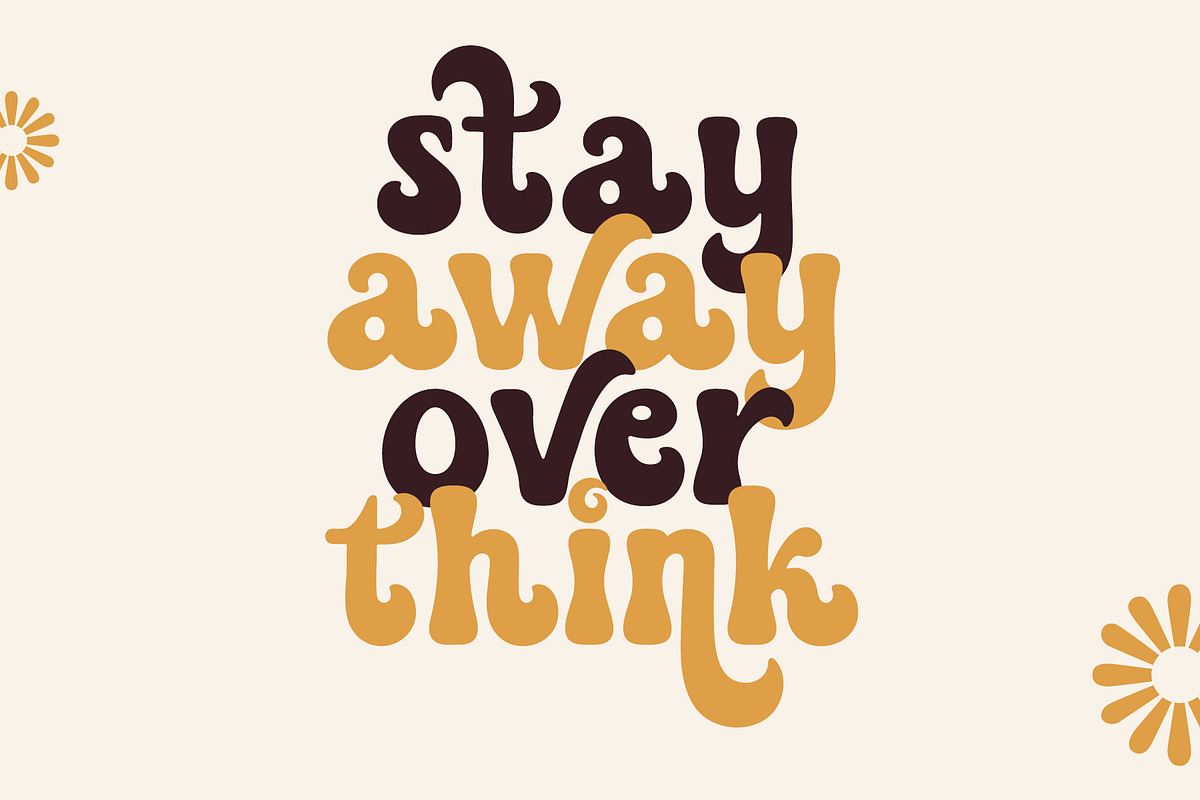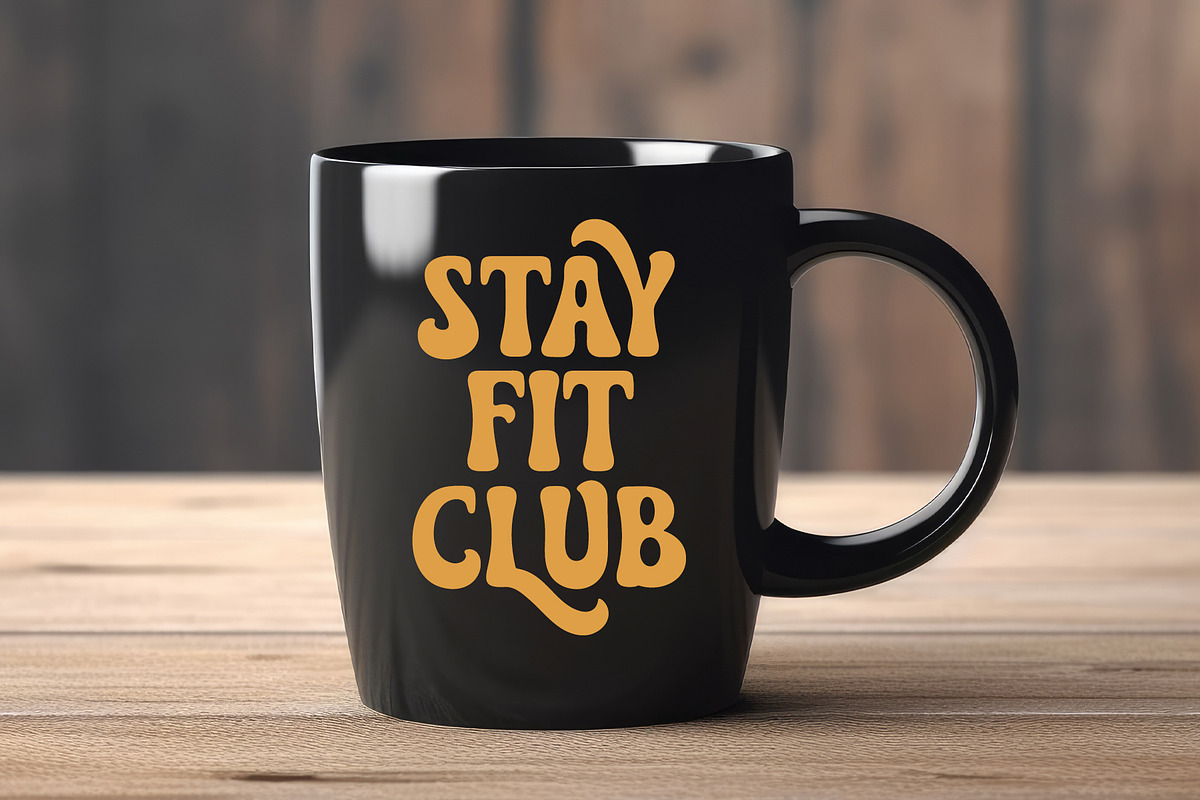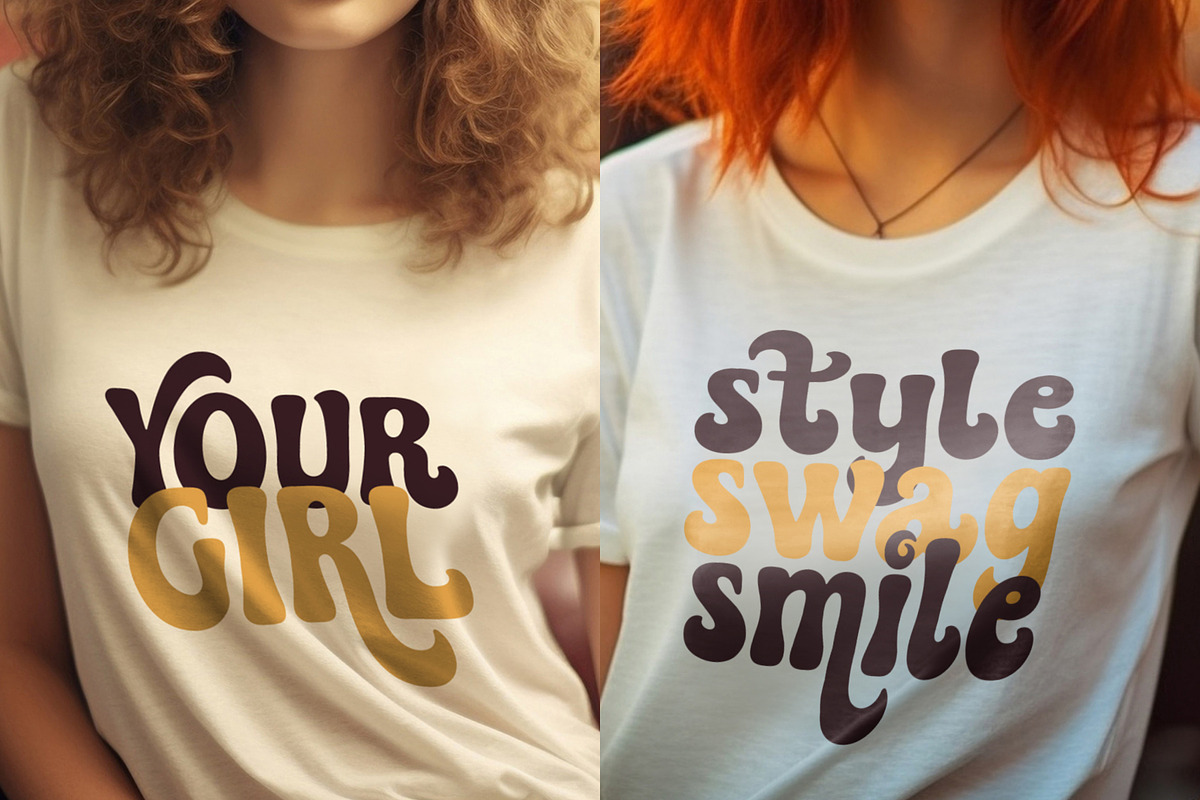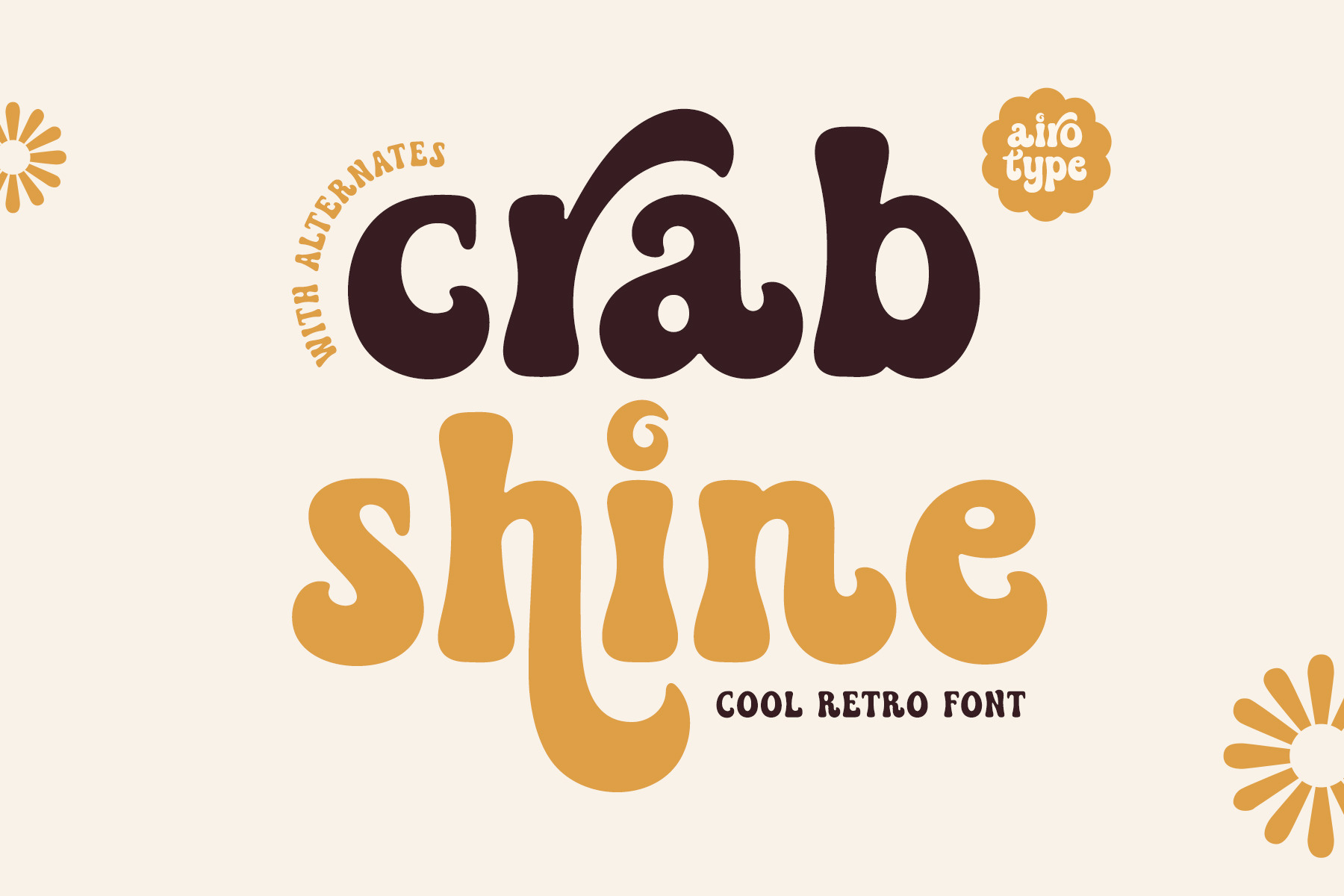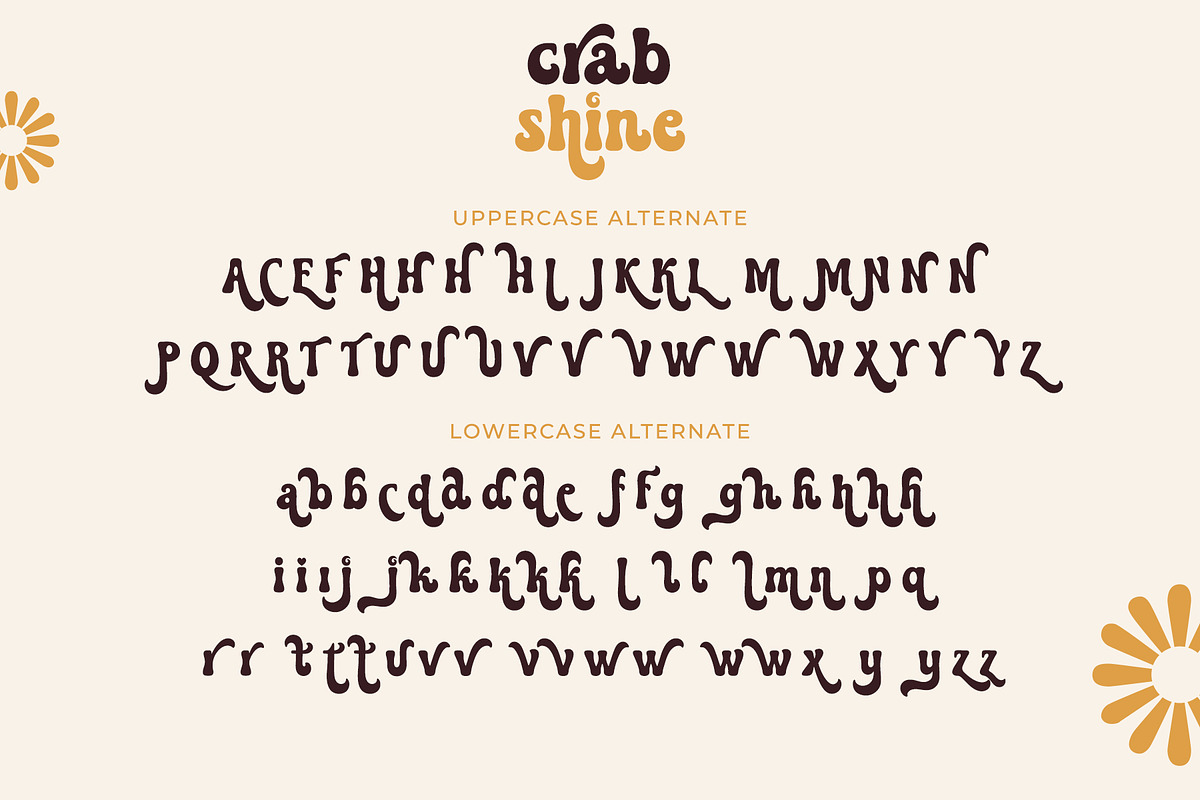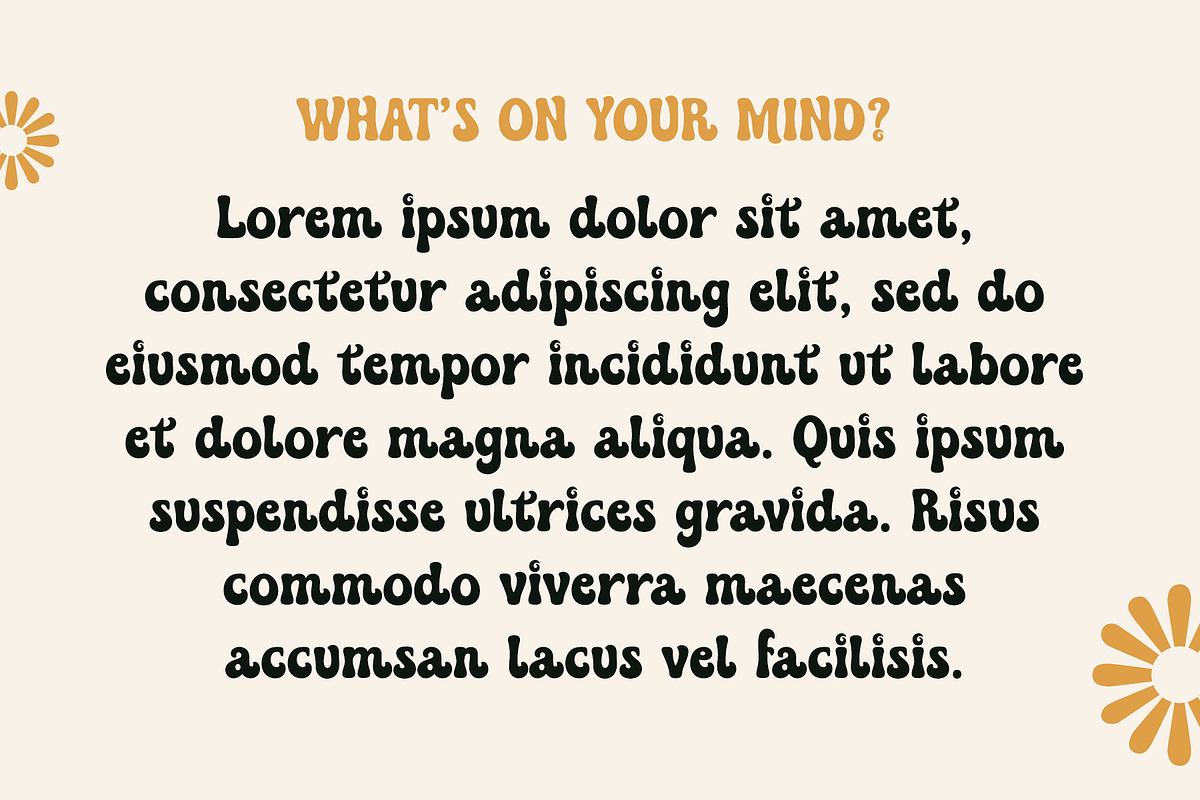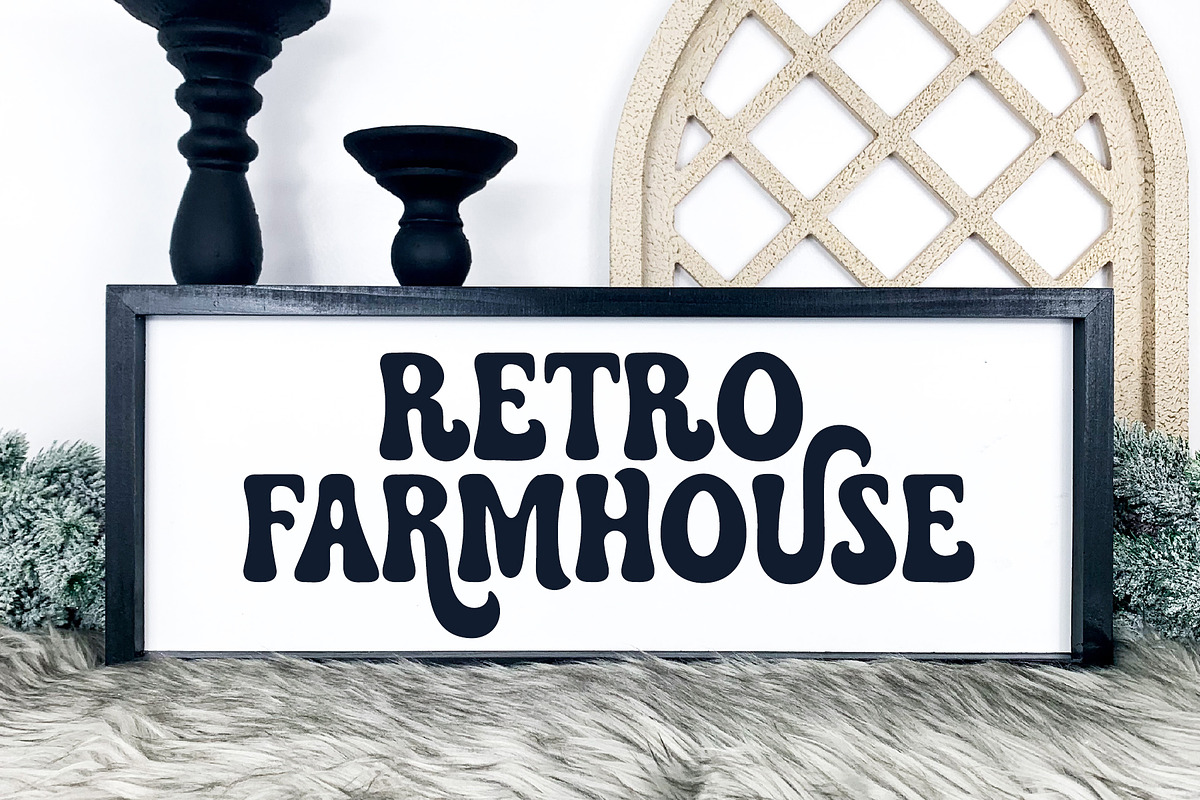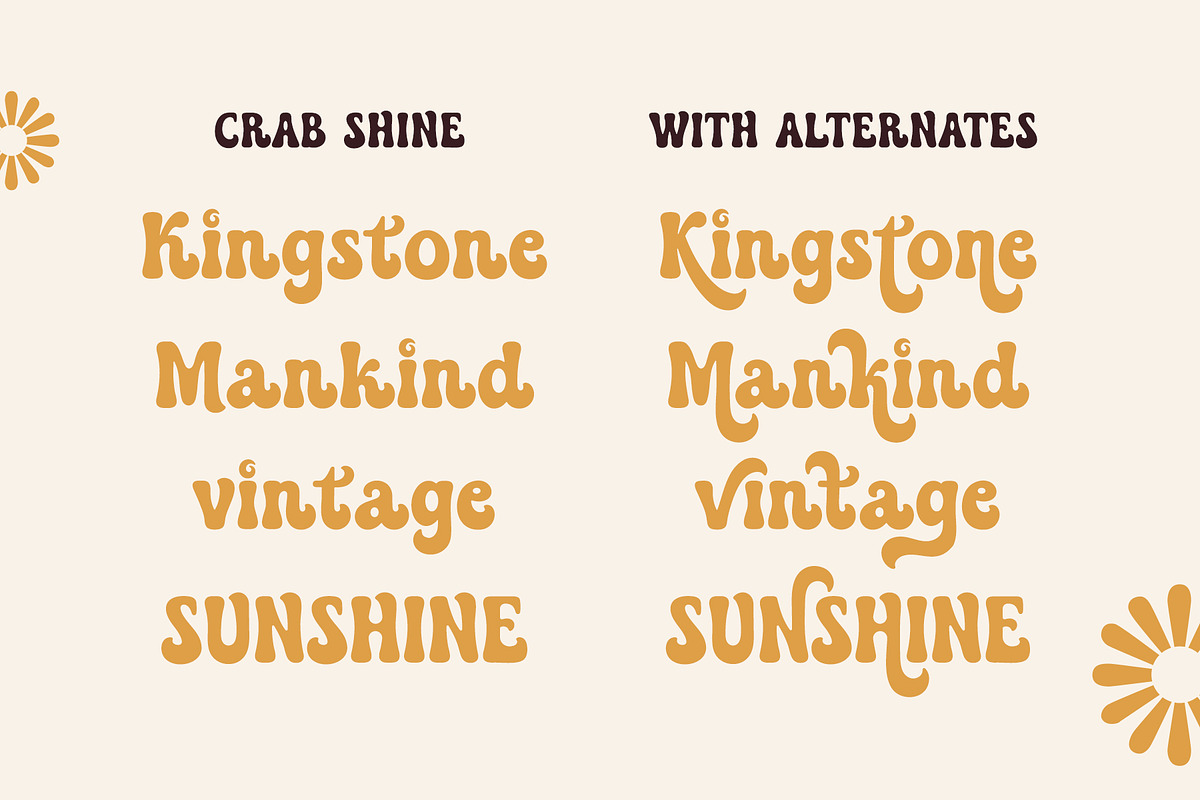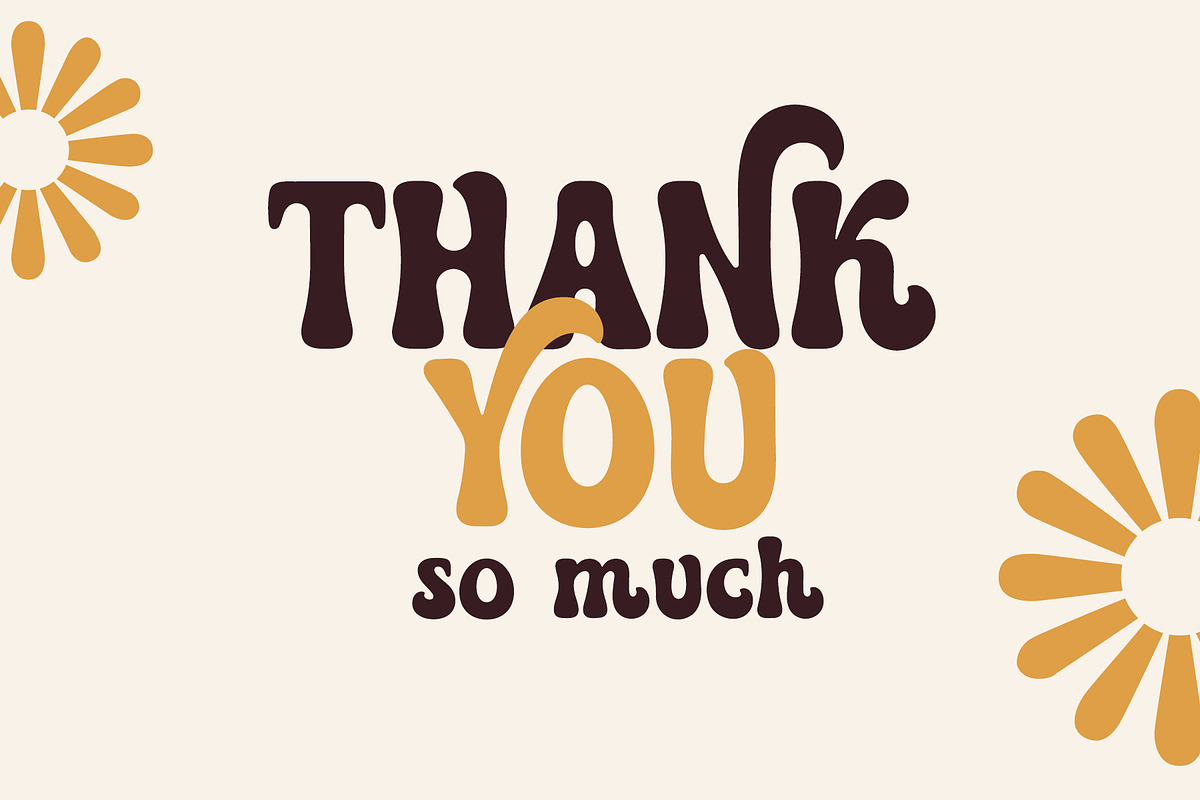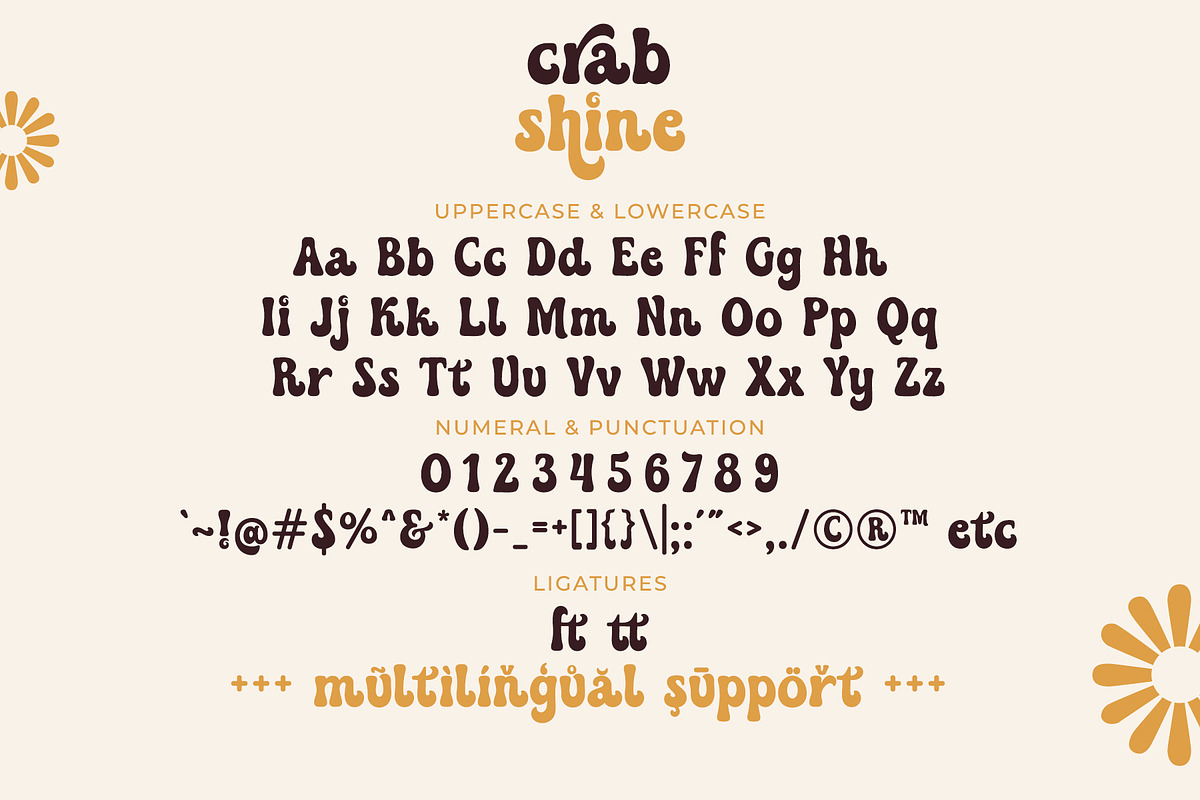
Crab Shine - Cool Retro Font
Crab Shine is modern and elegant retro font. It has lovable style with vintage touch.
Crab Shine is so fabulous for any projects with elegant and retro vintage style, such as logo, crafting, t-shirt, branding, sticker, sublimation, quotes, greeting cards, and many more.
- Uppercase and Lowercase (include extra glyphs)
- Most Multilingual Accent